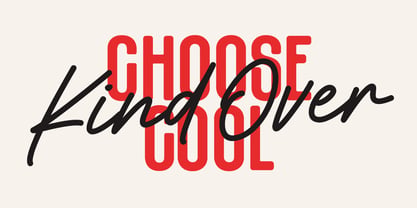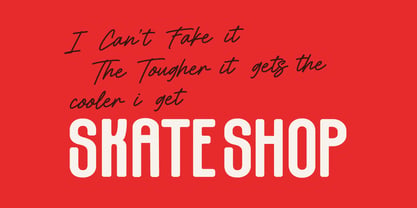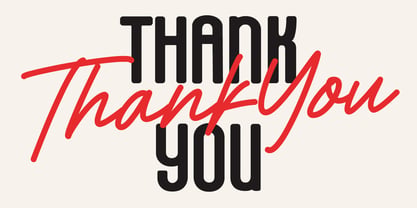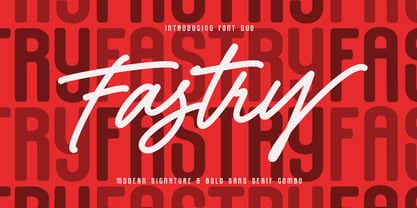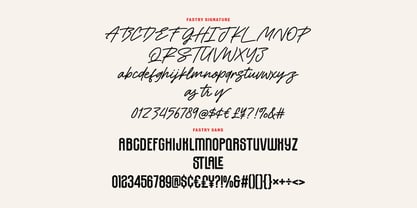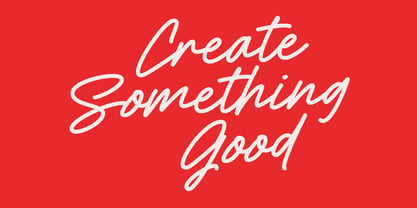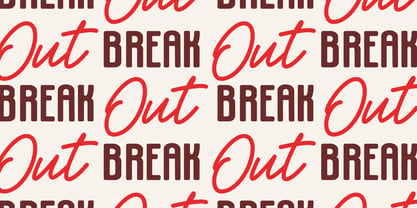
MC Fastry
by Maulana Creative
The MC Fastry Font Family was designed by Gilang Maulana and published by Maulana Creative. MC Fastry contains 2 styles and family package options. More about this family
Fastry is a dynamic font duo that perfectly balances elegance with a rugged, urban edge. It features a sleek, hand drawn Modern Signature script that flows with natural movement and a powerful, Bold Condensed Sans Serif that commands attention. Designed for versatility, this pairing is ideal for branding, social media quotes, and high impact editorial layouts. Whether you are aiming for a sophisticated touch or a bold, athletic vibe, the Fastry Duo provides the perfect typographic harmony to make your designs break out from the crowd.
Designers: Gilang Maulana
Foundry: Maulana Creative